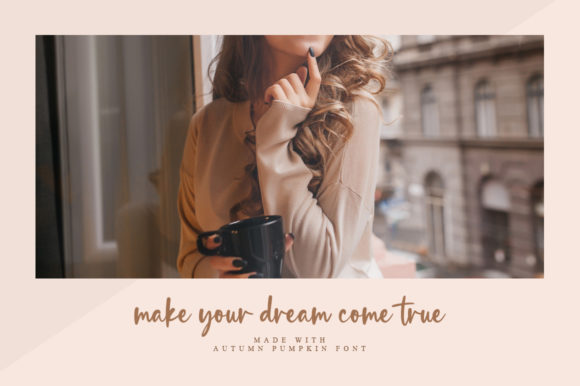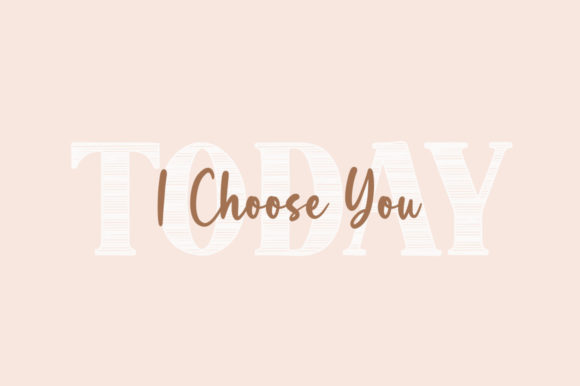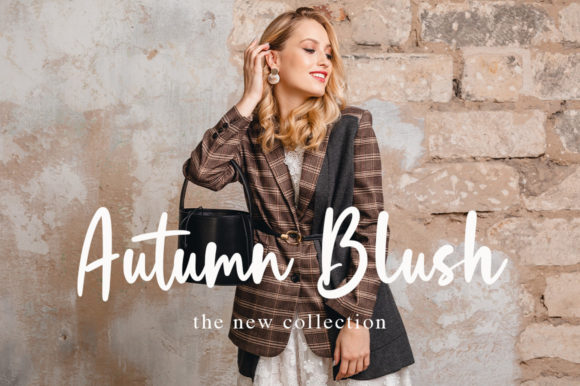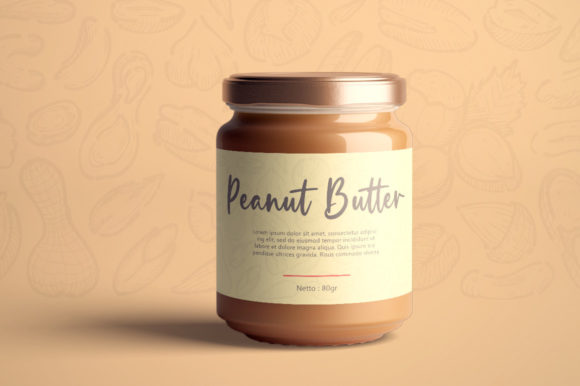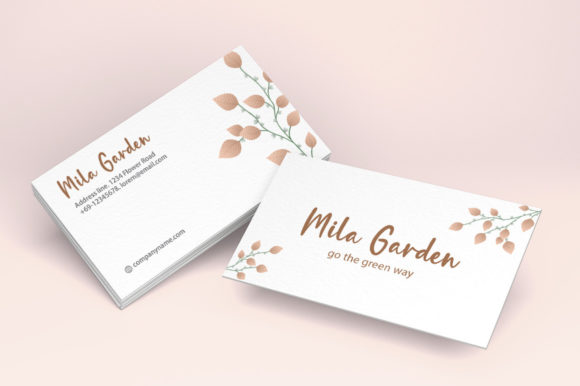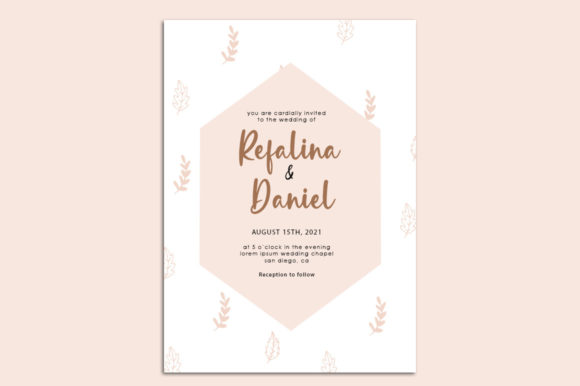
The Magic of Autumn Pumpkin Font: A Designer’s Delight
I’ll never forget the time I was working on a wedding invitation project, and I just couldn’t find the perfect font to capture the essence of the couple’s special day. The design needed to be romantic, elegant, and joyful all at once. That’s when I stumbled upon the Autumn Pumpkin font, and it was love at first sight! 💕
Autumn Pumpkin is a dainty and flowing handwritten font that’s perfect for adding a touch of whimsy and romance to any design. In this article, I’ll share my experience with this beautiful font, its features, and how to make the most of it in your designs.
An Honest Review of Autumn Pumpkin Font
- 💖 Sweet and joyful personality that’s perfect for wedding invitations, cards, and other romantic designs
- ✅ Elegant and flowing script that’s easy to read
- 🎉 Beautifully crafted with attention to detail, making it perfect for high-end designs
- 👍 Highly versatile and can be used for a variety of design projects, from digital to print
- ⚠️ Some letters may require manual kerning for optimal spacing
- ⚠️ Limited availability of stylistic alternates, but still offers a range of OpenType features
- Explore the OpenType features, such as stylistic alternates and swashes, to add more personality to your design
The Backstory of Autumn Pumpkin Font
Autumn Pumpkin was designed with love and care by a talented font designer who wanted to create a font that captures the essence of the autumn season. The designer drew inspiration from the changing leaves, the cozy warmth of pumpkin spice, and the joy of the season. The result is a font that’s both elegant and playful, perfect for adding a touch of autumn magic to your designs.
| Font Name | Autumn Pumpkin Font |
| Author | Graphix Line Studio |
Q: What type of designs is Autumn Pumpkin best suited for?
A: Autumn Pumpkin is perfect for wedding invitations, cards, and other romantic designs that require a touch of elegance and whimsy.
Q: Does Autumn Pumpkin support OpenType features?
A: Yes, Autumn Pumpkin offers a range of OpenType features, including stylistic alternates and swashes.